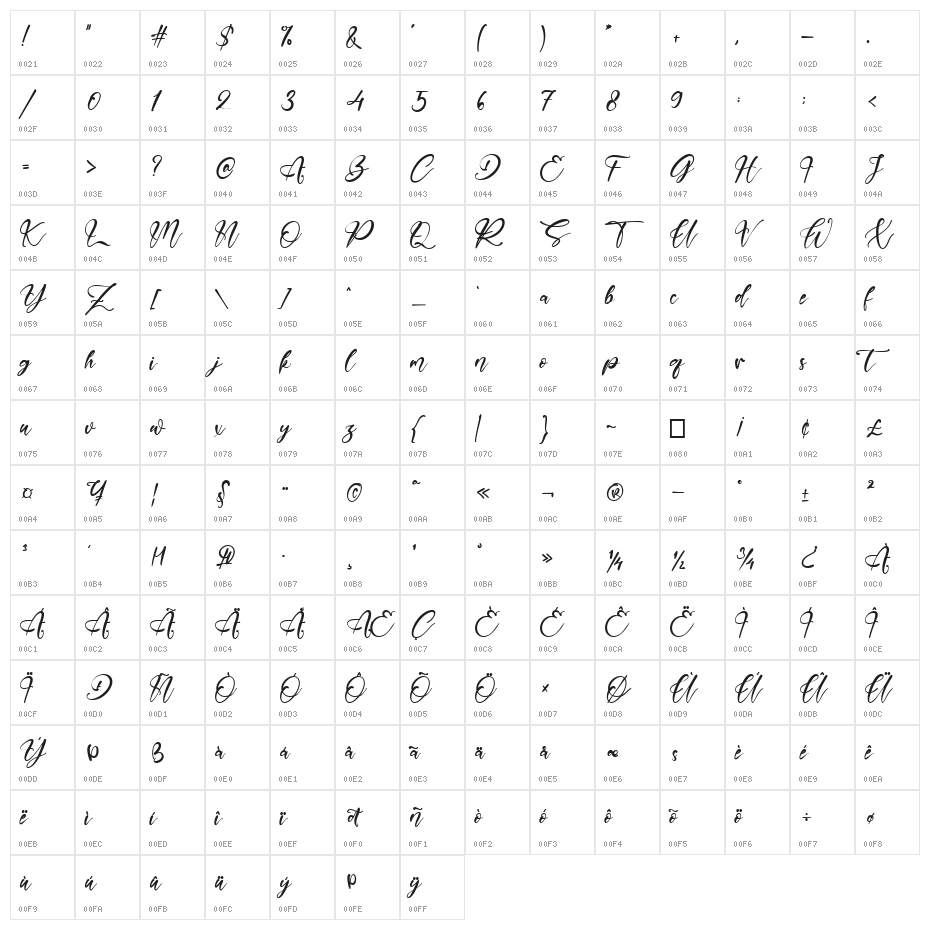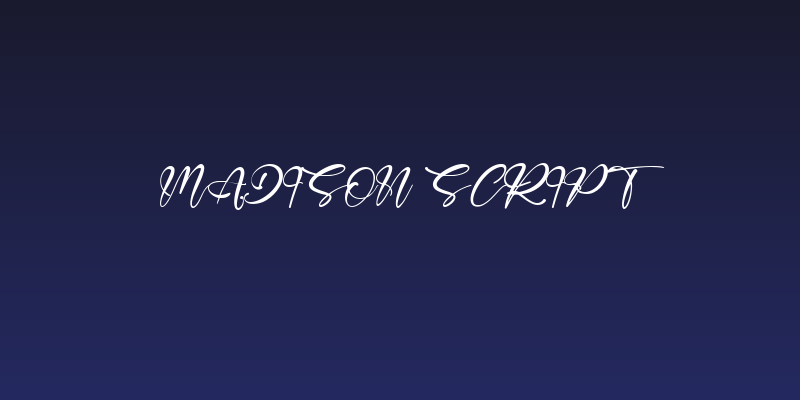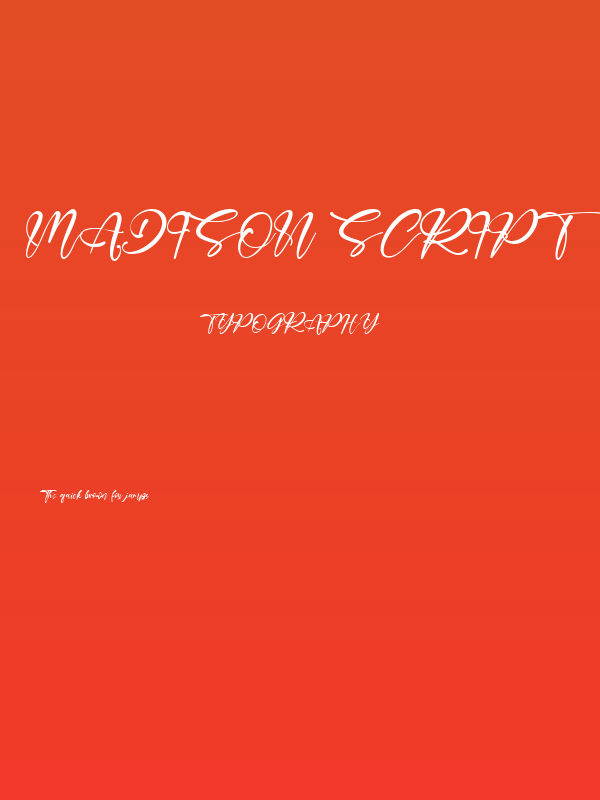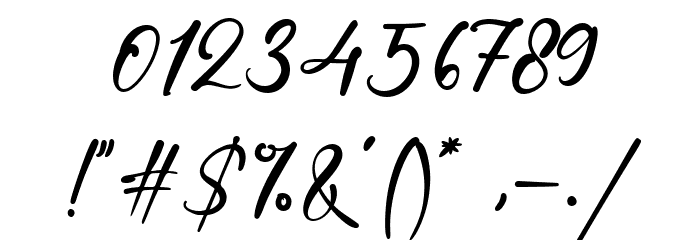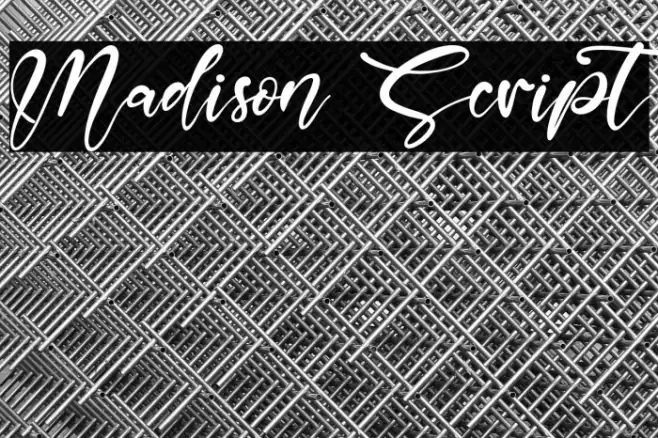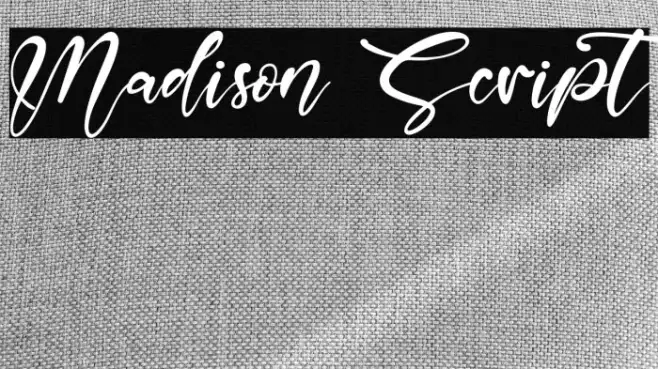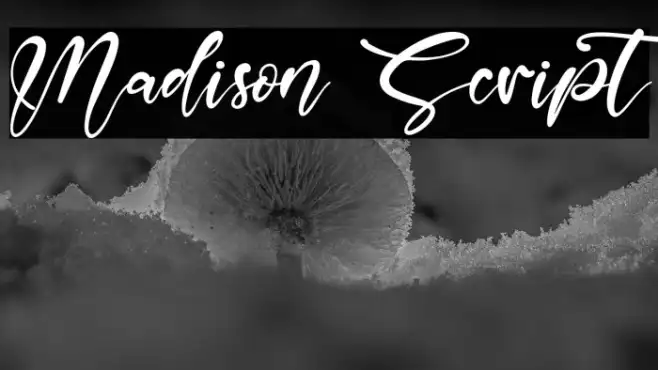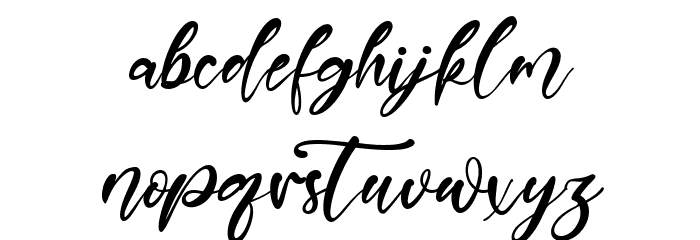
Madison Script Font
Madison Script Description
This elegant script font features fluid, connected strokes that mimic the natural flow of handwriting. The uppercase letters are ornate and sweeping, with a graceful flair that adds a touch of sophistication. The lowercase letters maintain a consistent style, with smooth curves and loops that enhance readability while retaining a decorative quality. The numerals are stylish and align well with the overall script theme. Special characters are thoughtfully designed to match the font's aesthetic, making it versatile for various uses. The font's overall appearance is both classic and modern, suitable for projects that require a personal and artistic touch.
| Proposed Projects | Ideal for wedding invitations, greeting cards, branding, and elegant signage. |